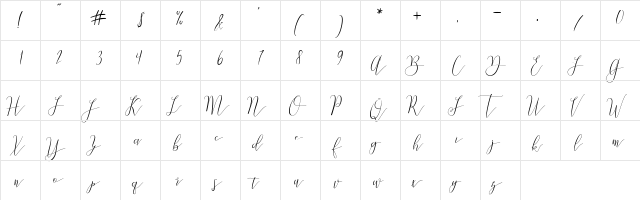
Bastille Day Free Regular
Design Context for Bastille Day Free Typeface
Bastille Day Free is a composed and adaptable typeface that performs quietly and consistently across a wide range of design contexts.